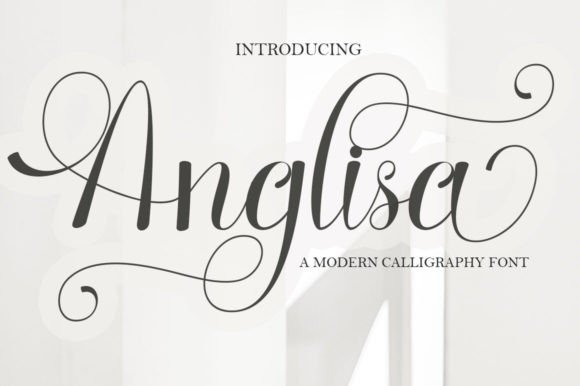
Introduction to Anglisa Font
Anglisa is a romantic and sweet calligraphic.
It has a casual yet elegant touch This font is PUA coded which means you can access all the glyphs and sweeps easily.